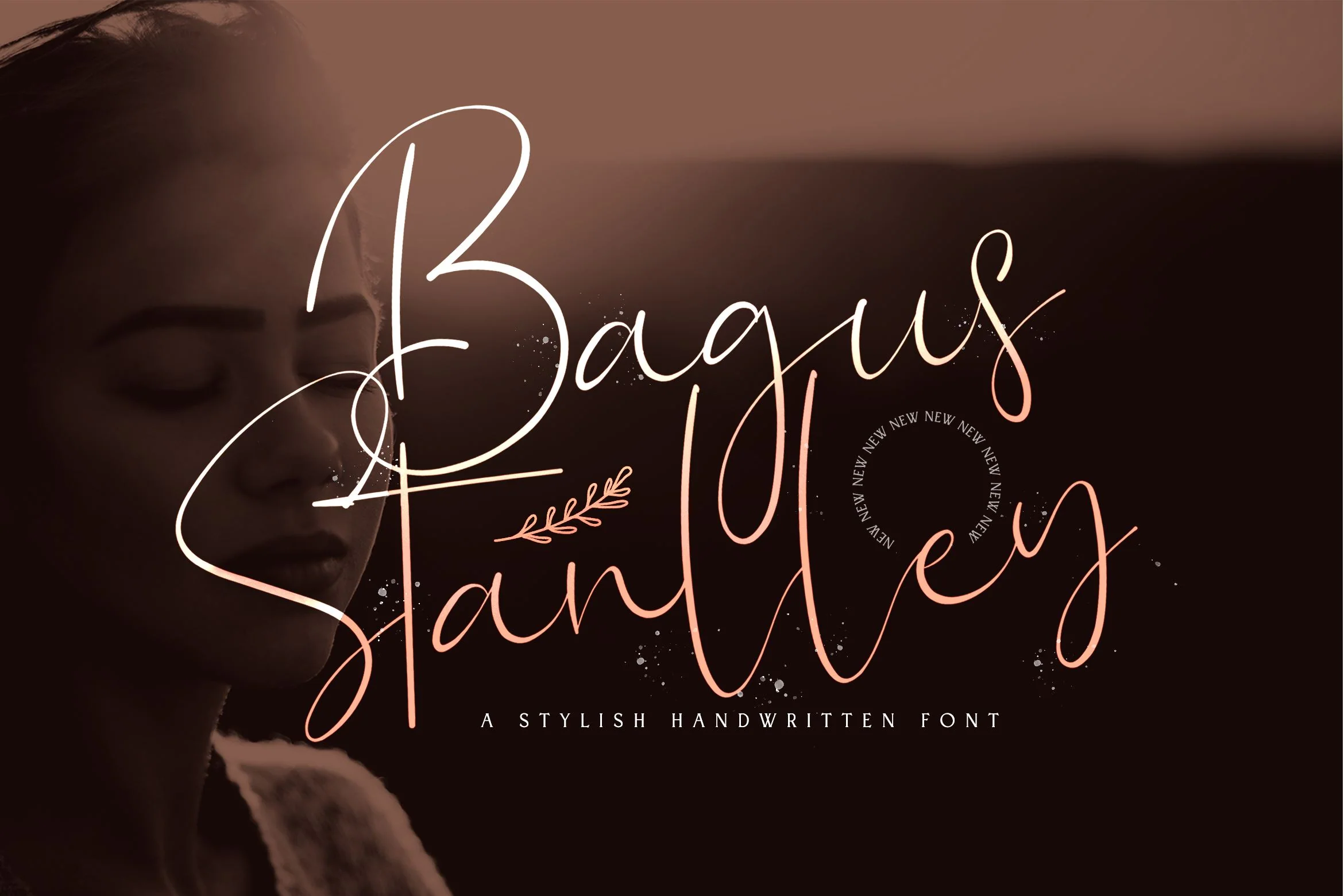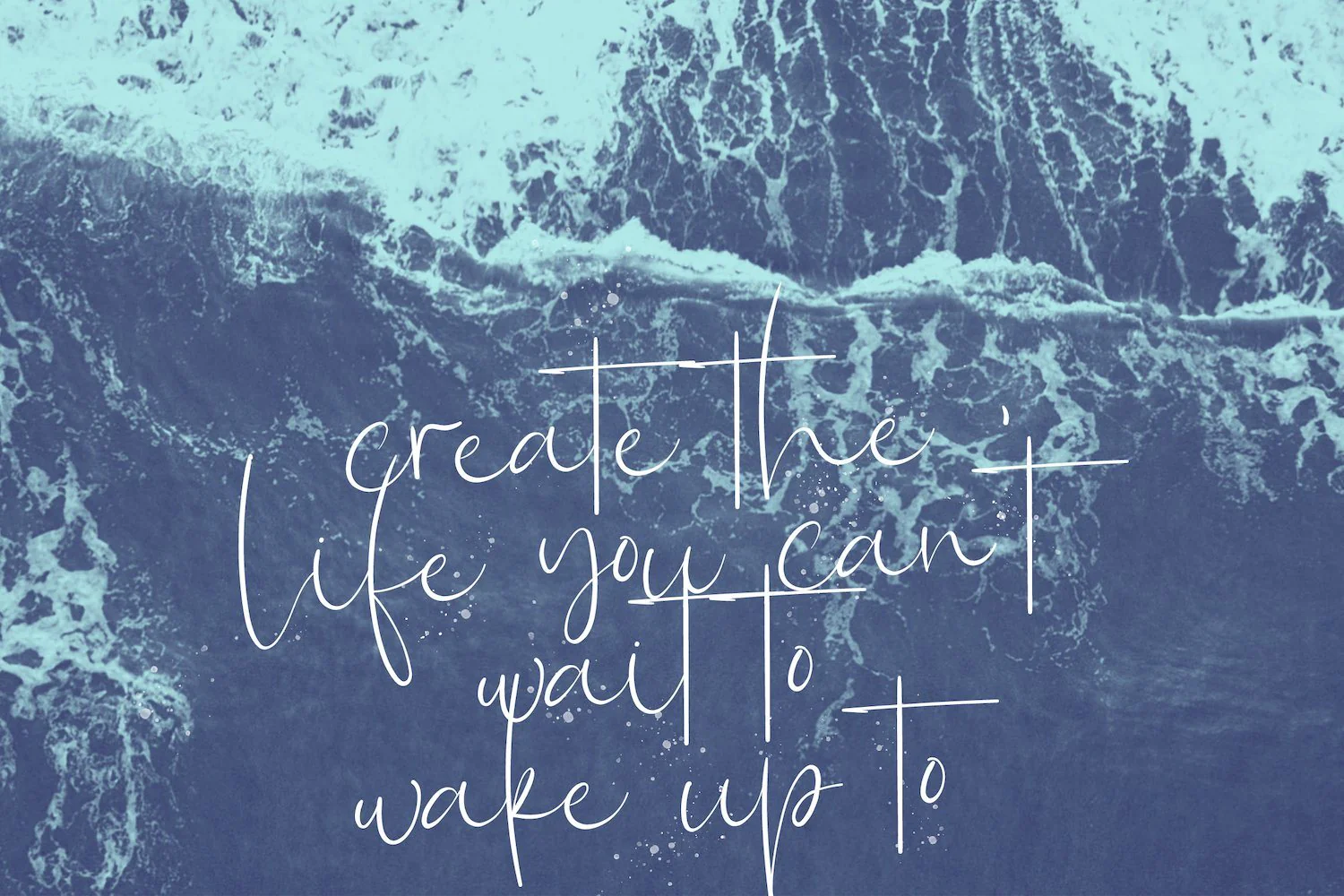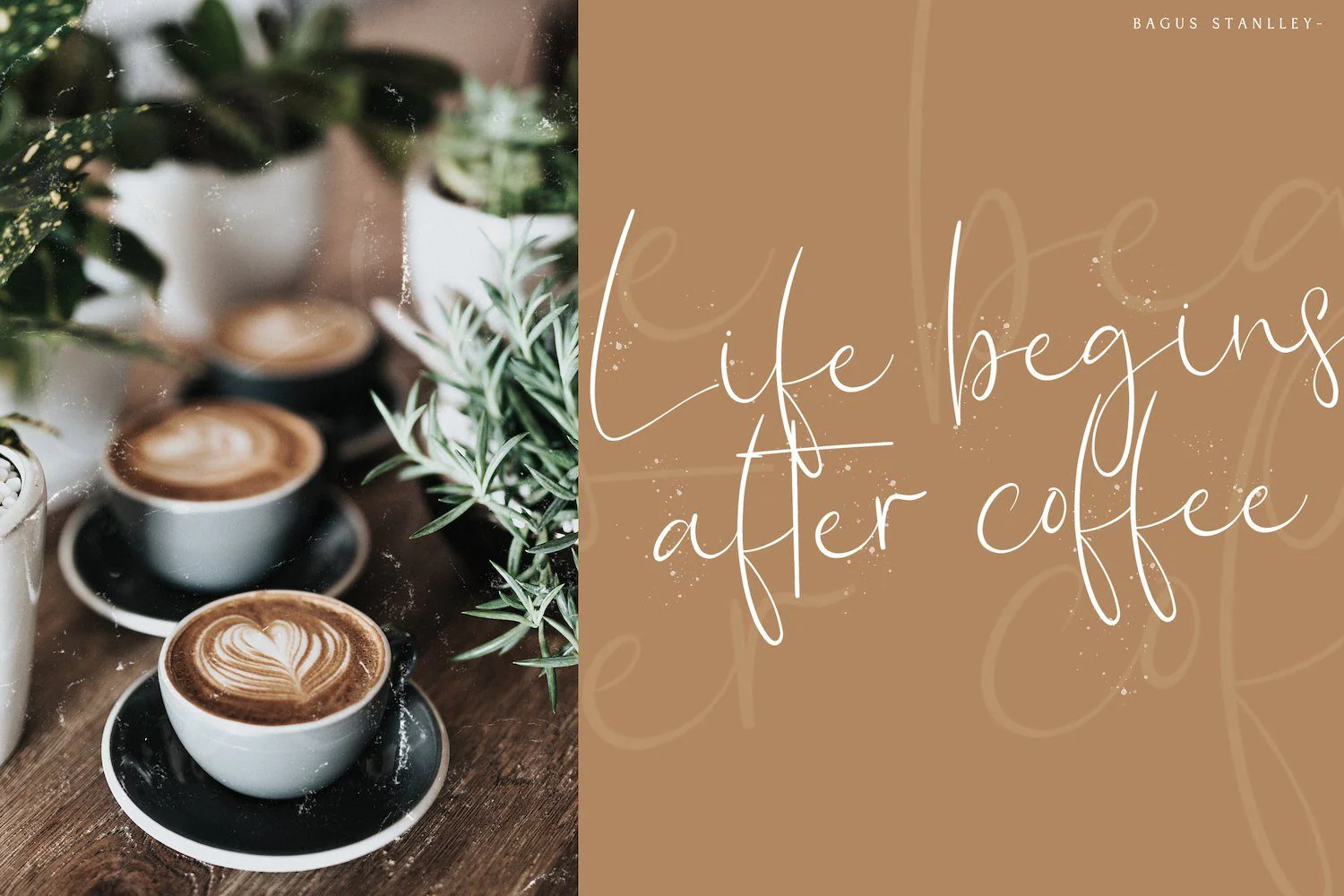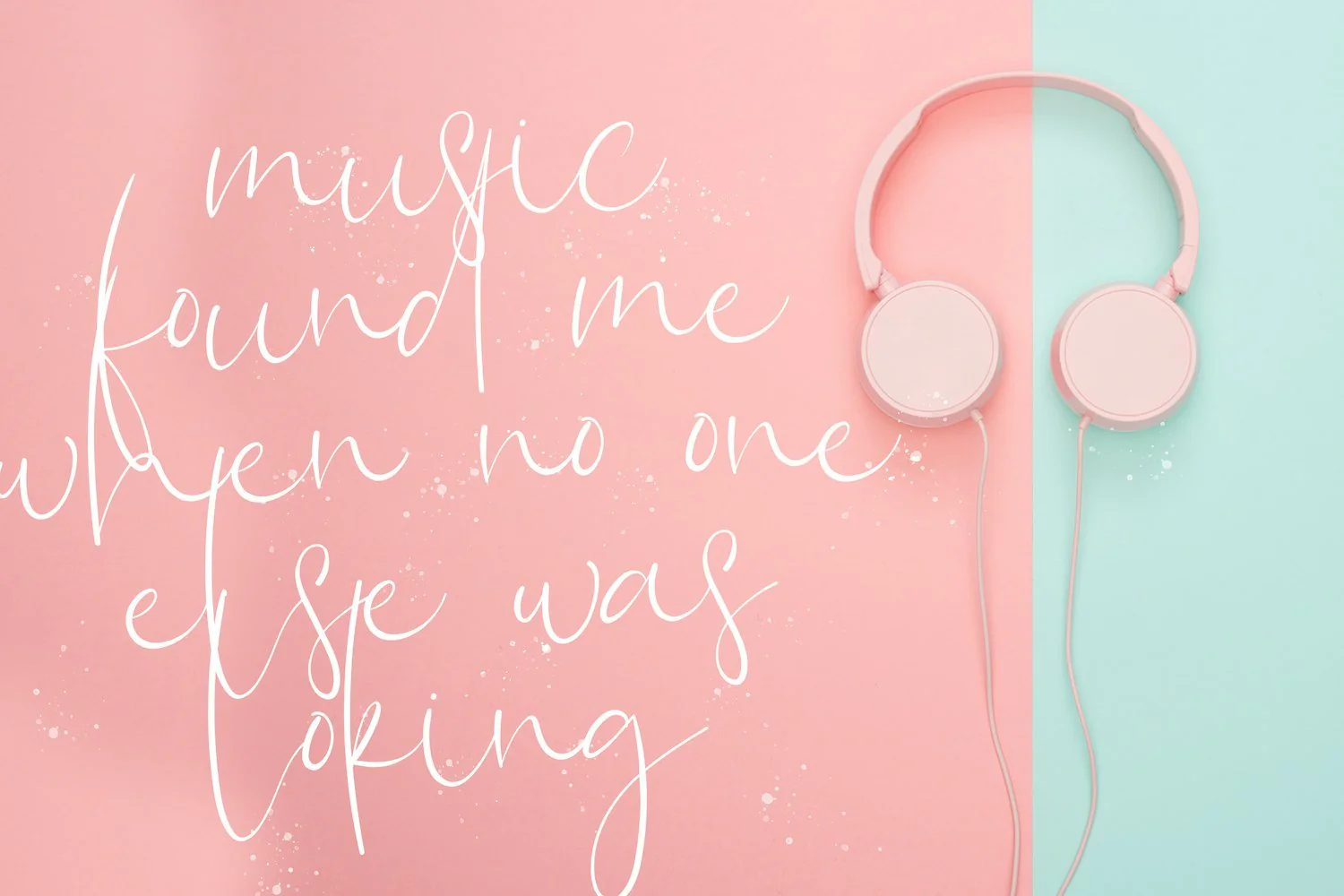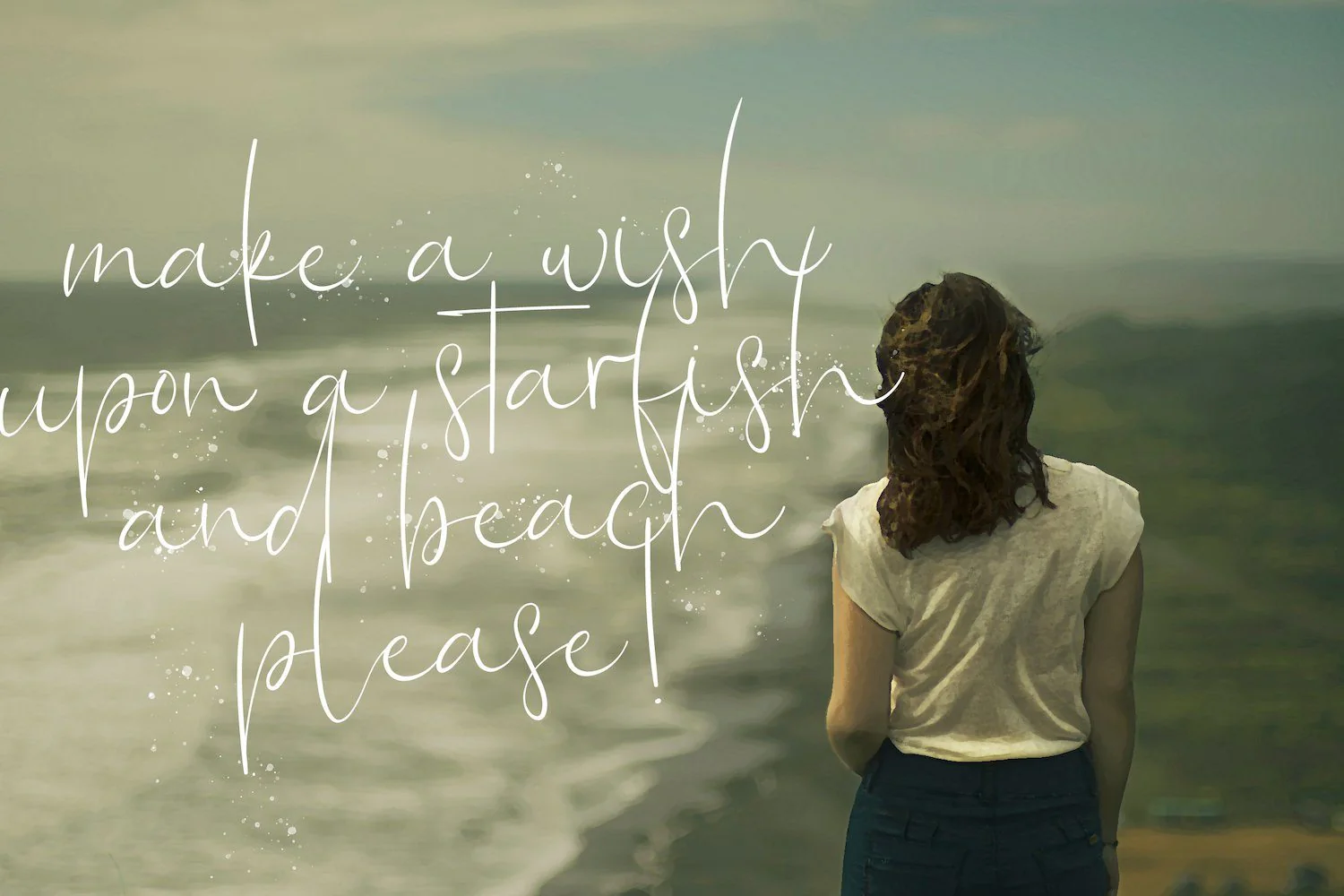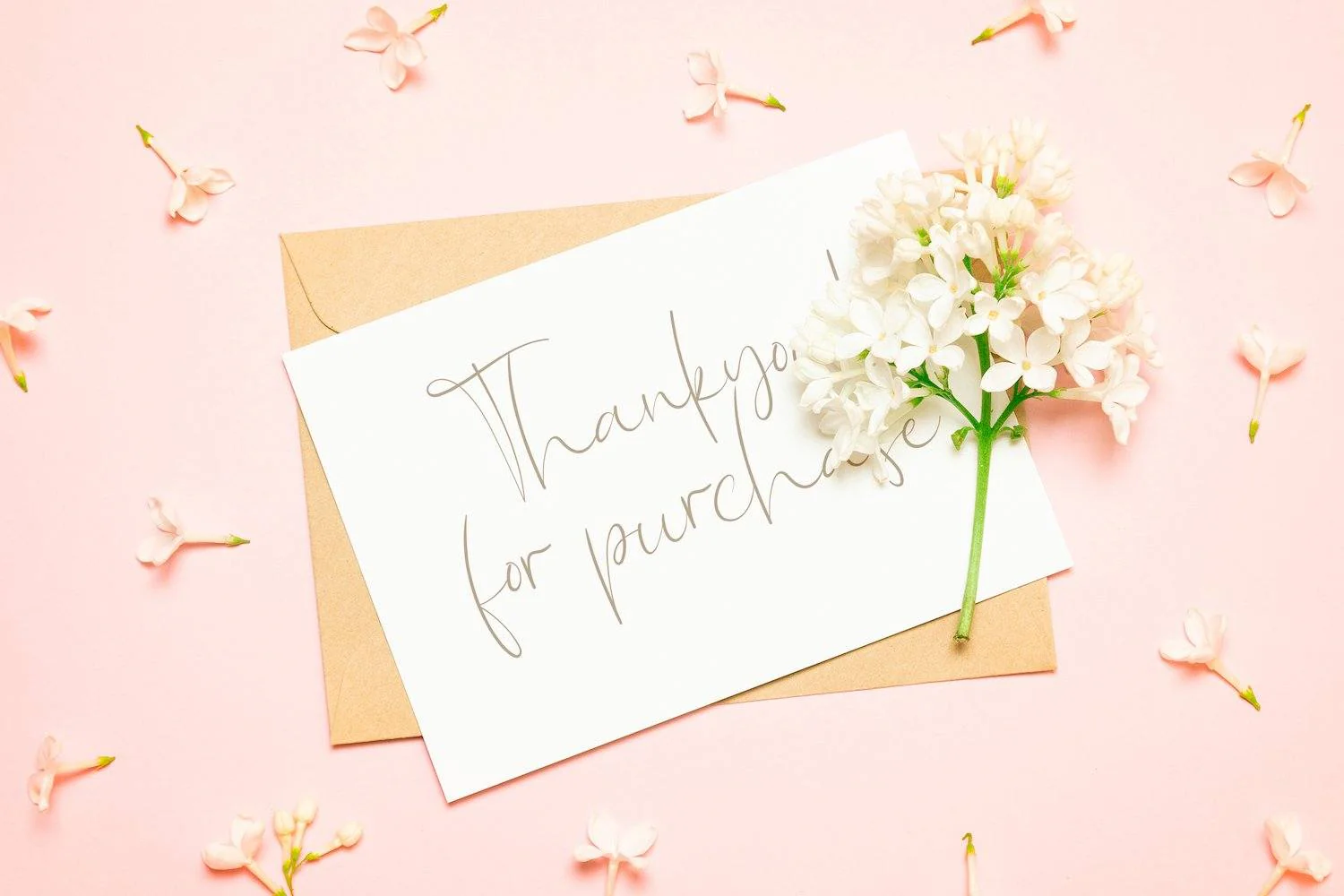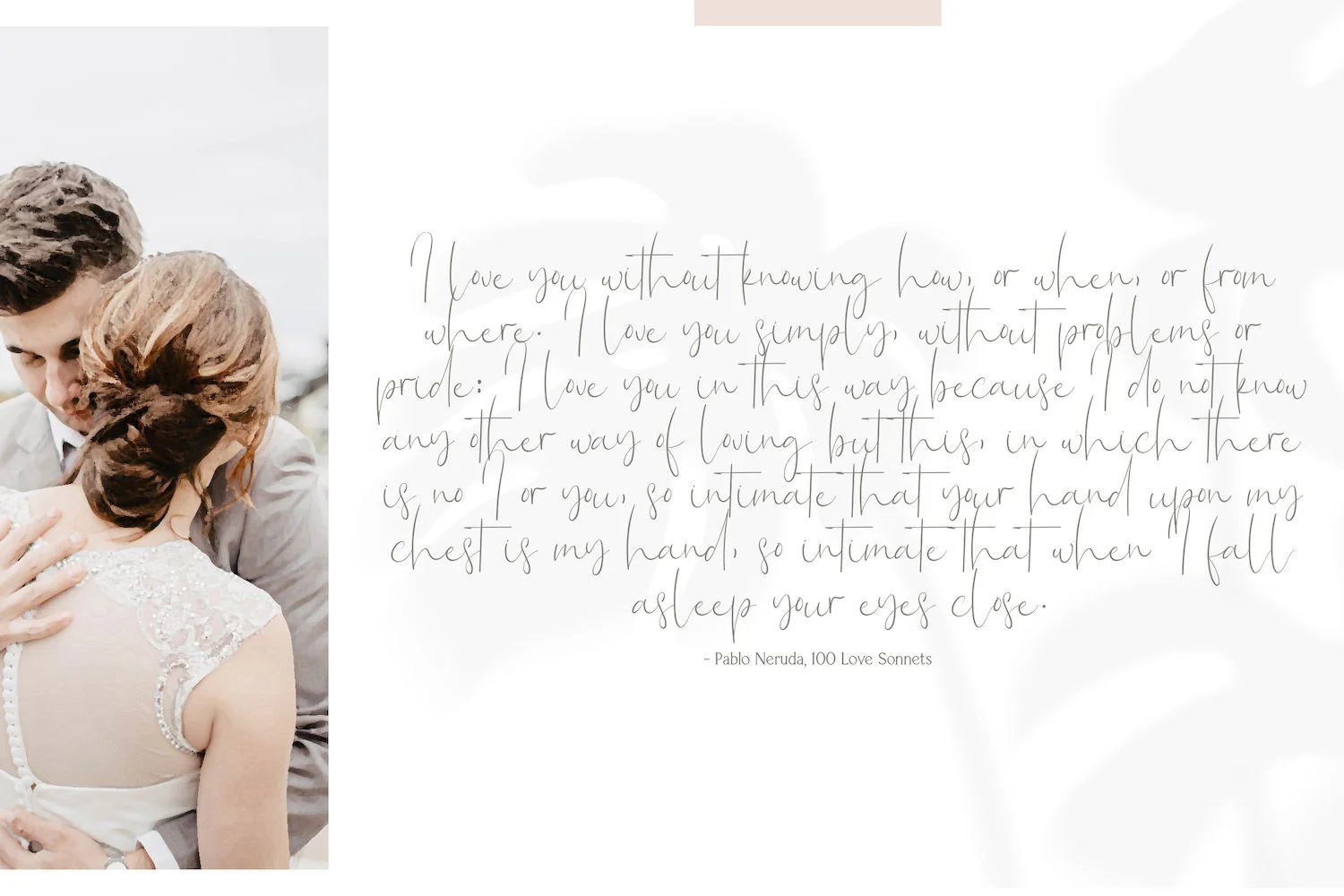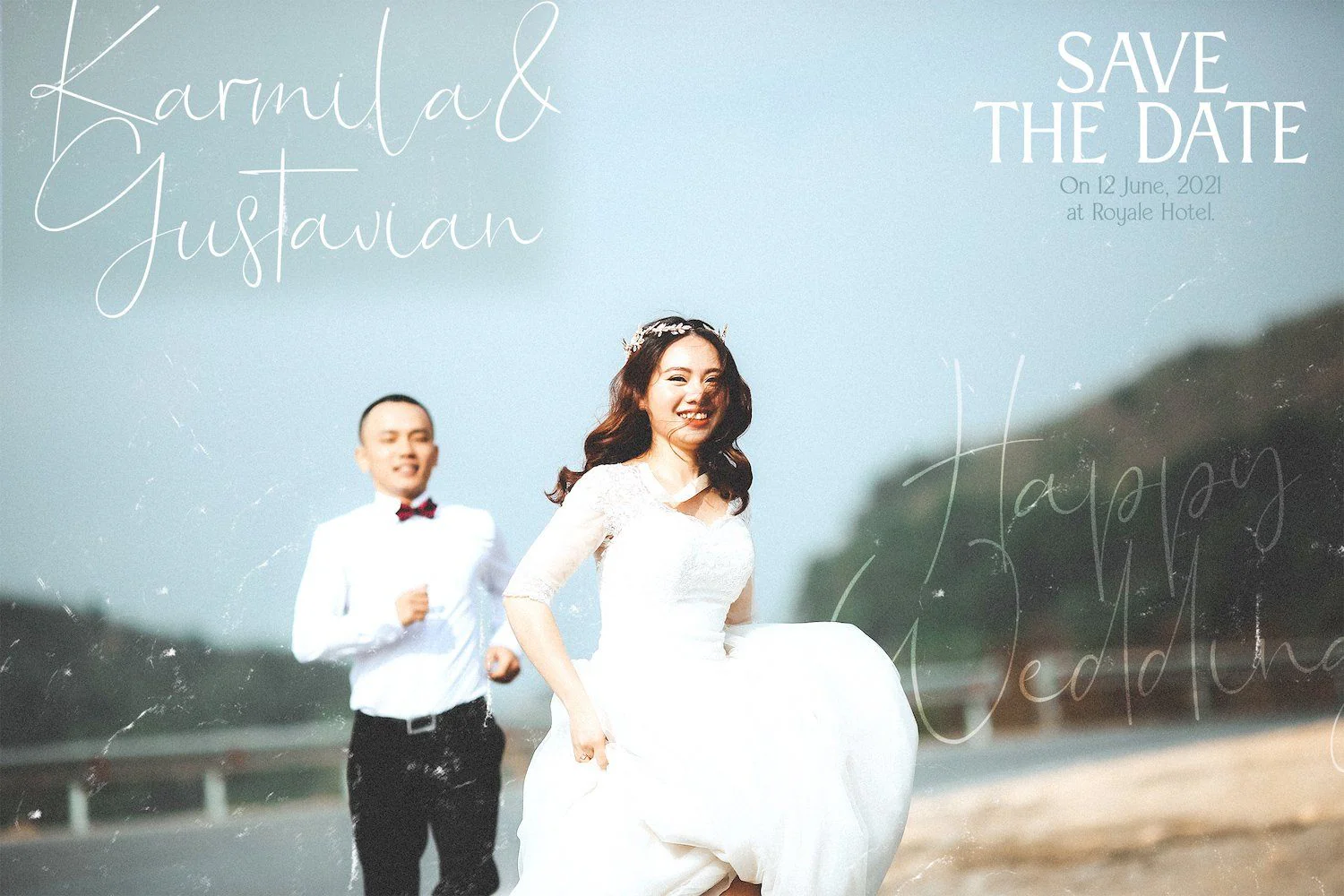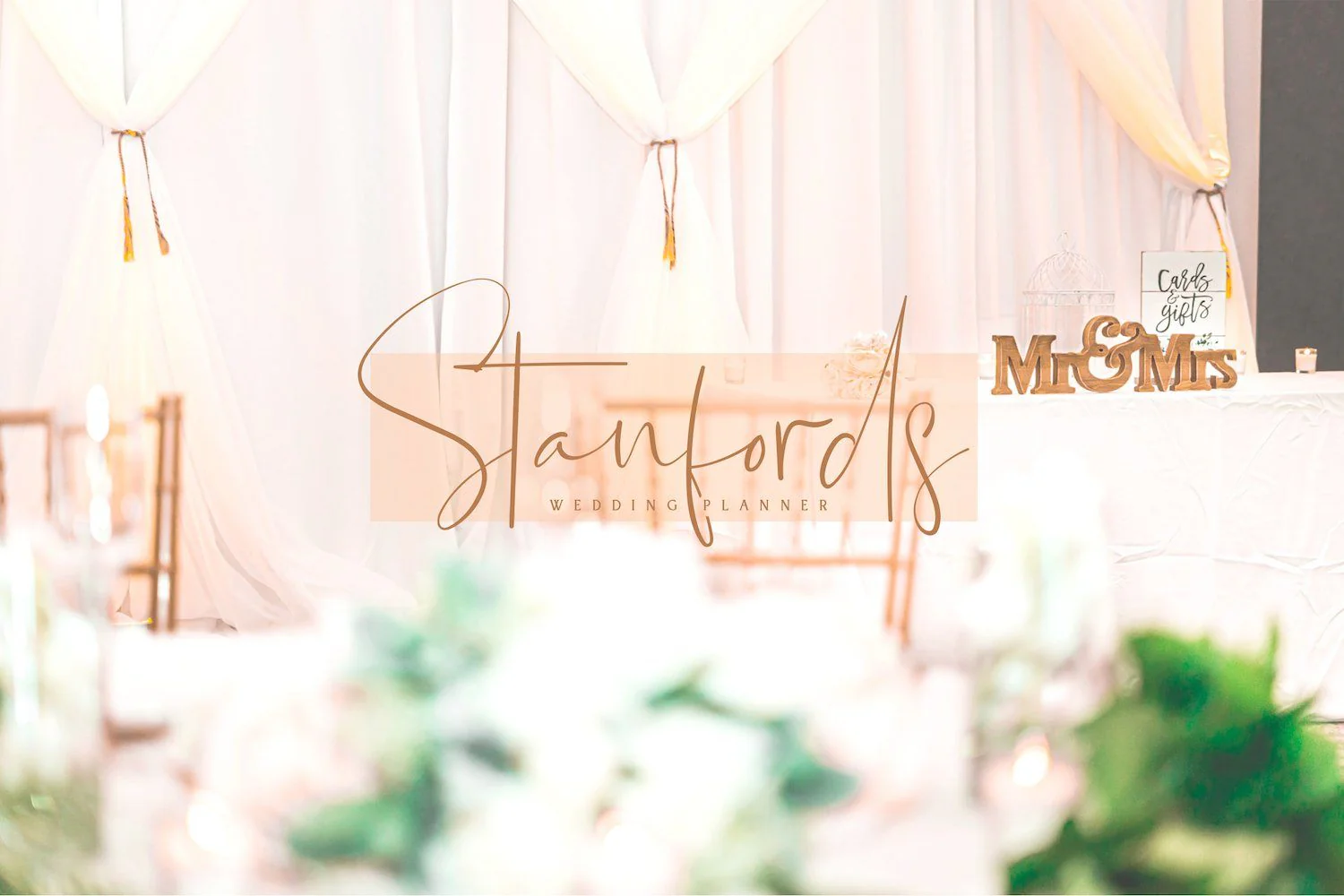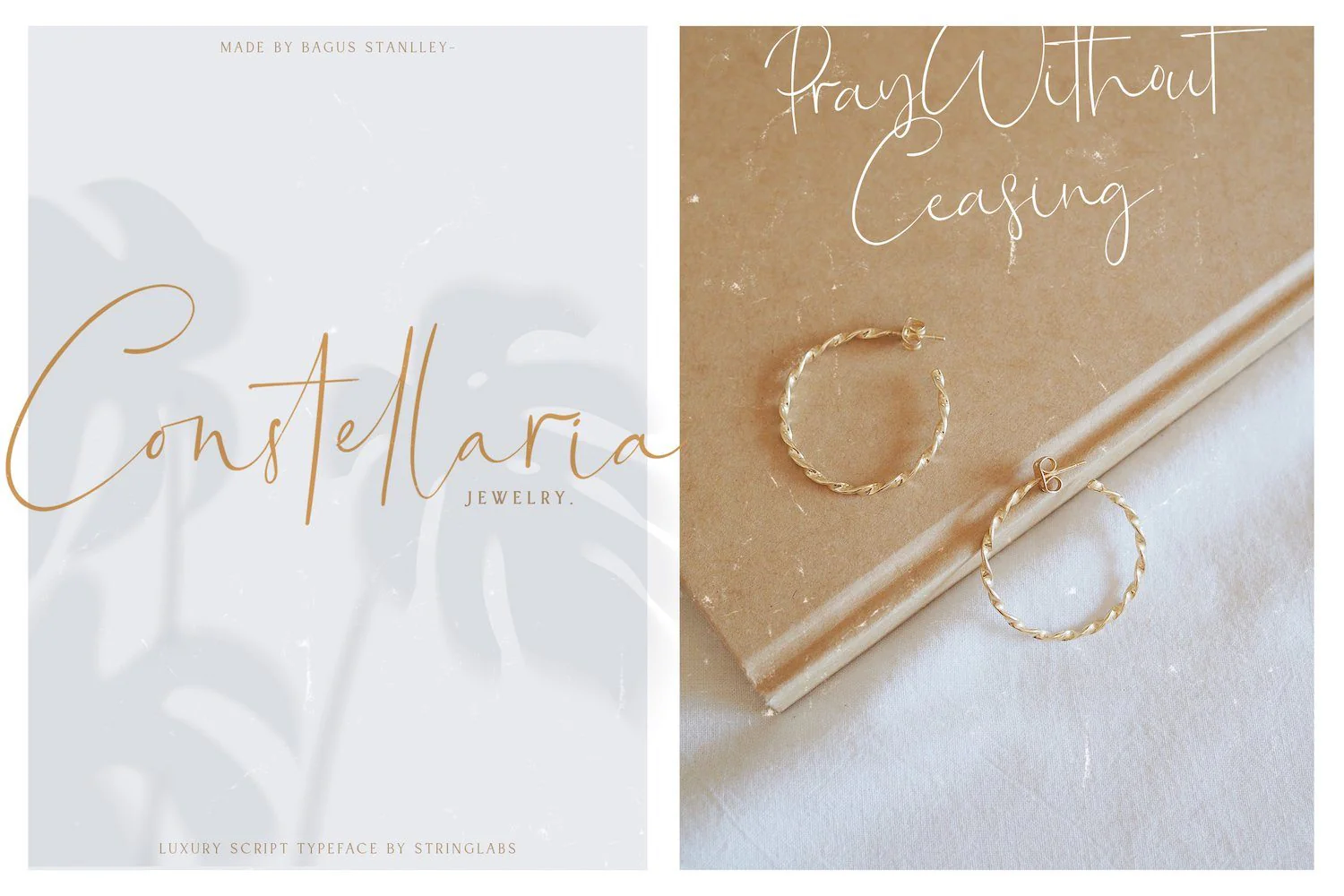
Bagus Stanlley - Stylish Script Font
Introducing Bagus Stanlley - Stylish Script Font
Bagus Stanlley is a modern handwritten font. It features an incredibly classic style, while still keeping a friendly feel. This font is PUA encoded which means you can access all of the cute glyphs and swashes with ease! It also features a wealth of special features including alternate glyphs and ligatures.
- Ton of Ligatures